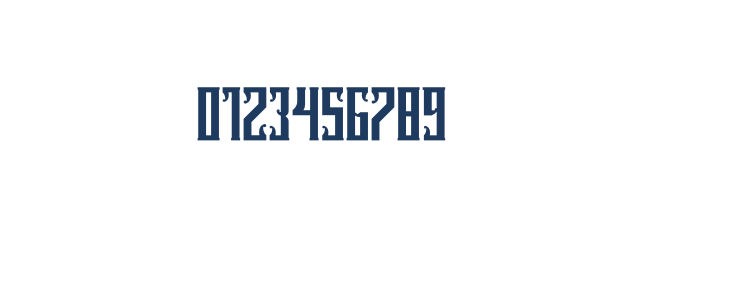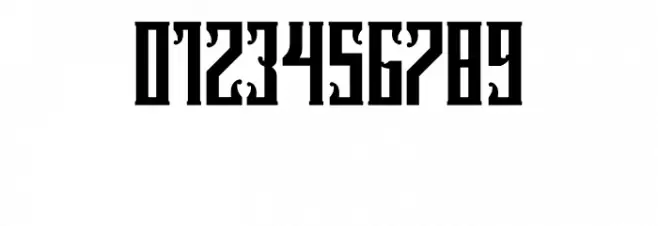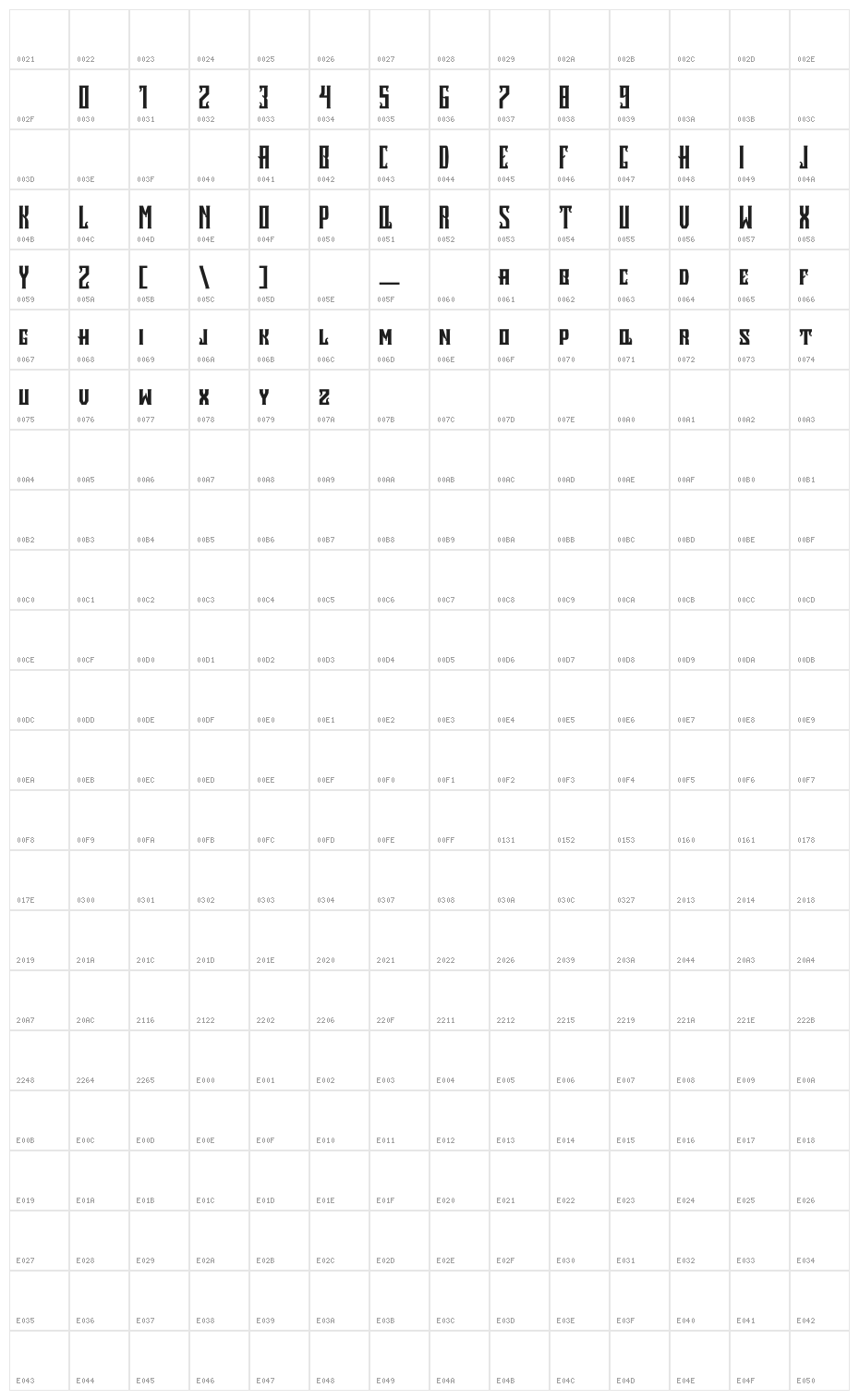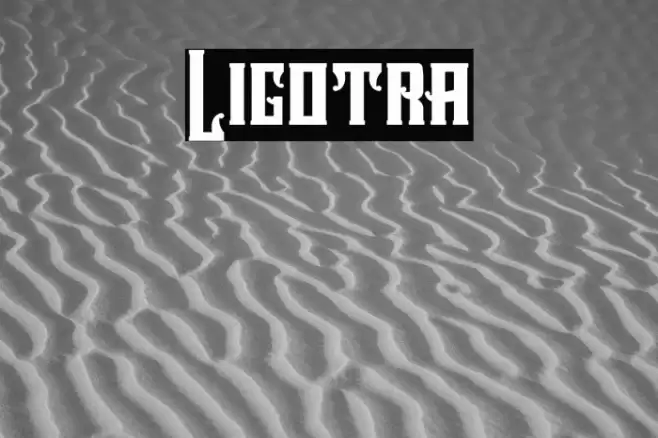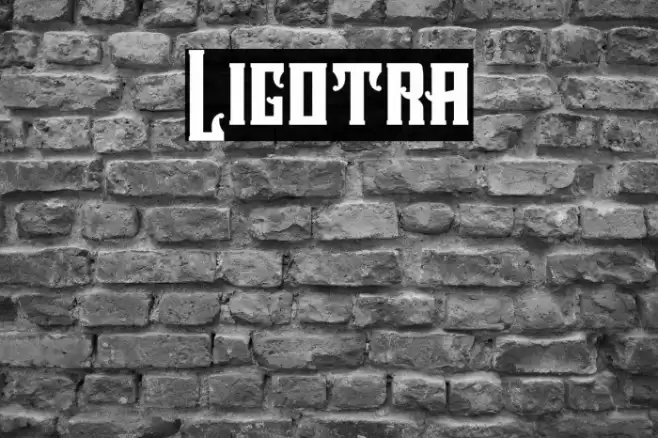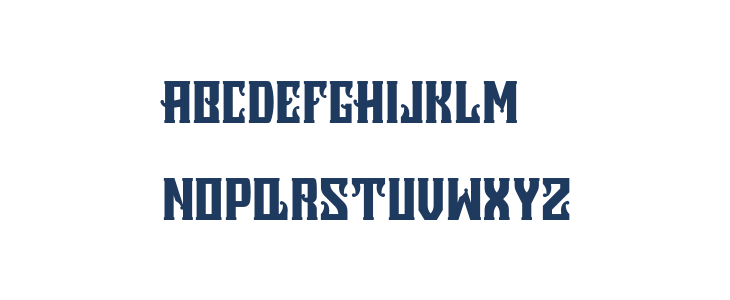
Ligotra Font
Ligotra Description
This font features a bold and decorative style with intricate, ornamental details that give it a unique and artistic flair. The characters are designed with sharp, angular edges and elaborate flourishes that extend from the main strokes, creating a striking visual impact. The uppercase letters are particularly prominent, with a strong presence that commands attention. The numbers and special characters maintain the same decorative elements, ensuring consistency throughout the font. This typeface is ideal for projects that require a bold statement and a touch of elegance.
| Use Case | Logos, Headlines, Posters |
| Proposed Projects | Ideal for branding, posters, album covers, and any project needing a bold, artistic touch. |